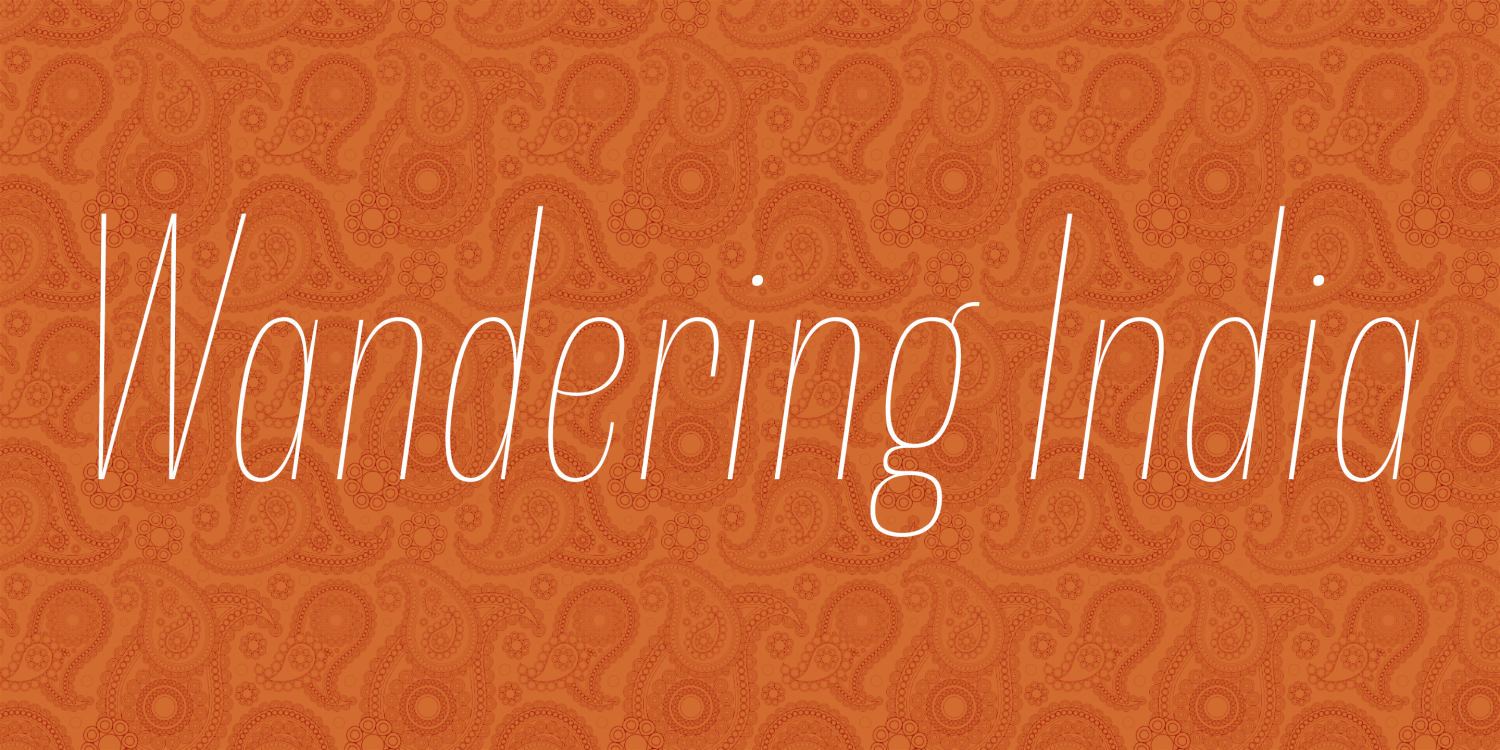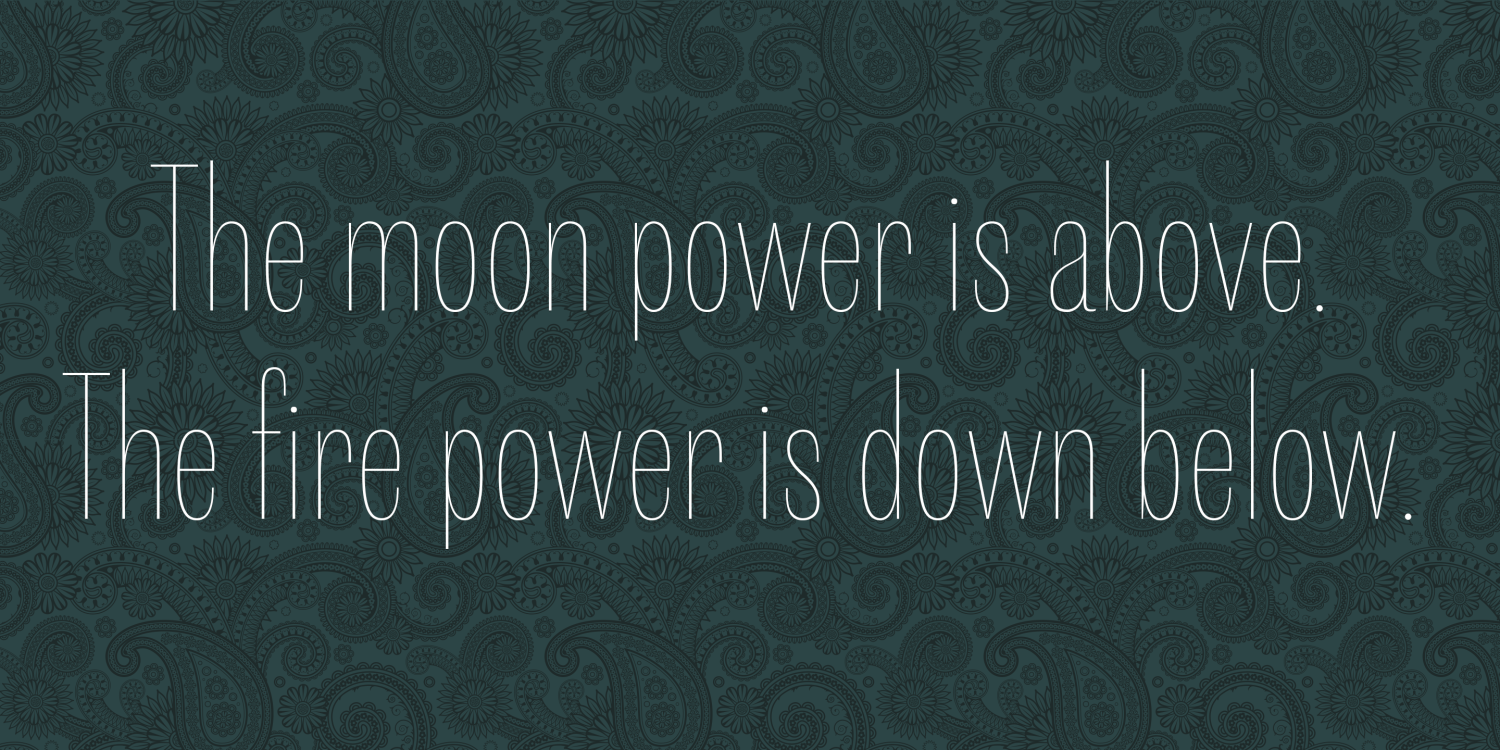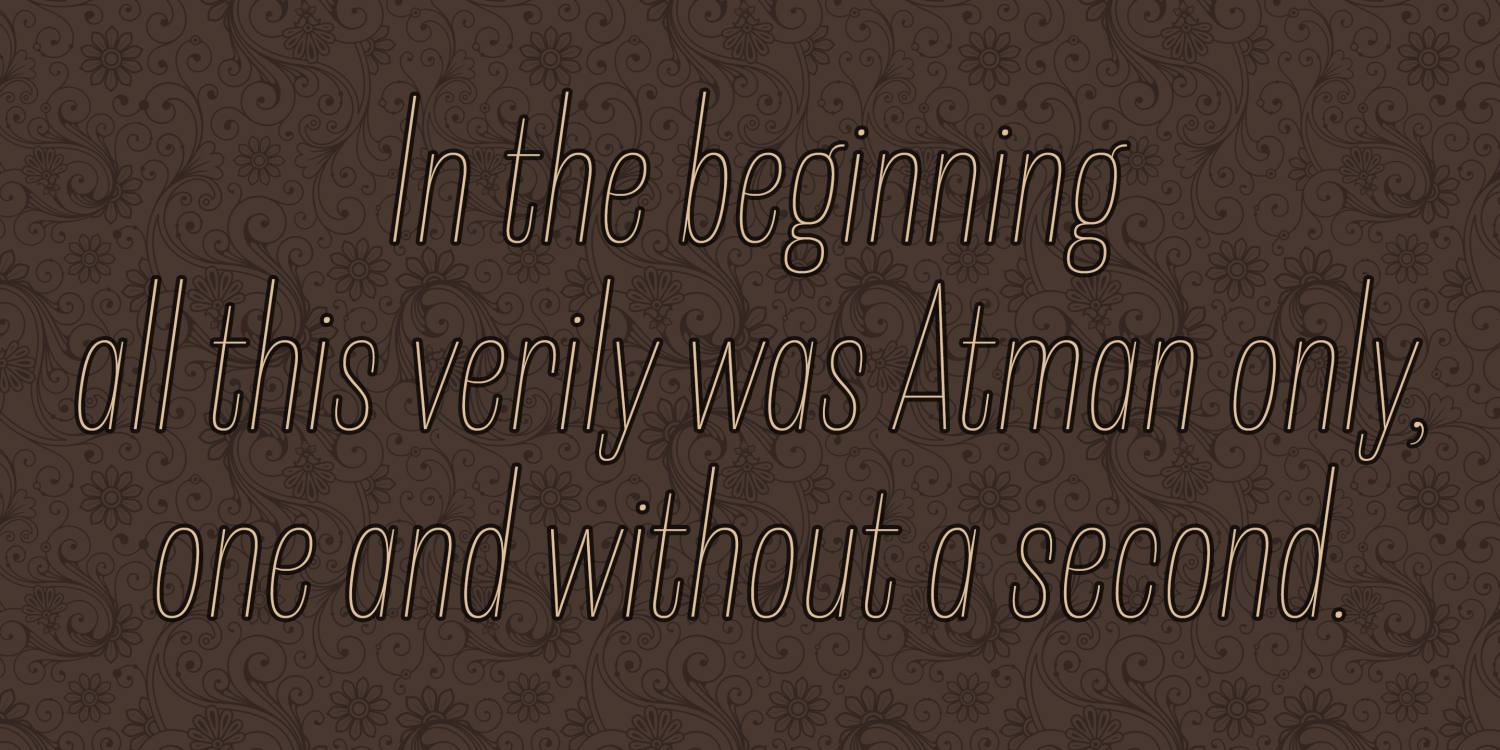
Shiva
Font Family by Dharma Type
Despite its very thin strokes, Shiva maintains a strong, impactful, and dignified presence on the page.
Key characters such as a, e, f, g, and y in Roman, and g and y in Italic, include alternate glyphs, accessible via the OpenType salt (stylistic alternates) feature—offering greater typographic flexibility and customization.